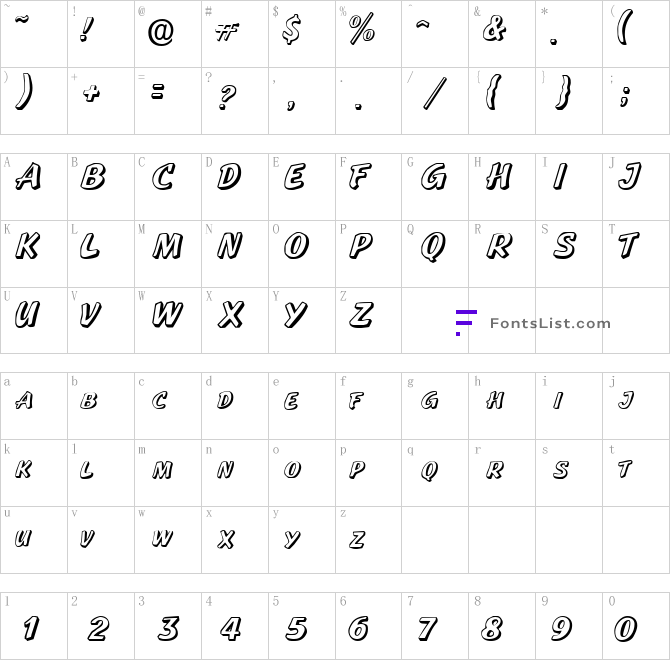
- Font Name:AnniesShadow
AnniesShadow.ttf is a very beautiful artistic font, AnniesShadow.ttf is widely used in the design and printing of various books and pictures,AnniesShadow.ttf has a strong visual impact,AnniesShadow.ttf is a commonly used font in newspapers, magazines and books, and is used in posters, e-commerce Poster design, store design, logo design, font design and other fields.AnniesShadow.